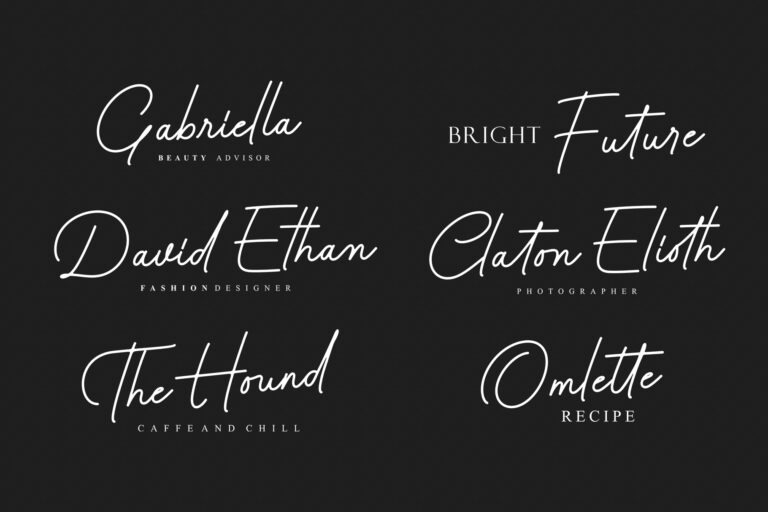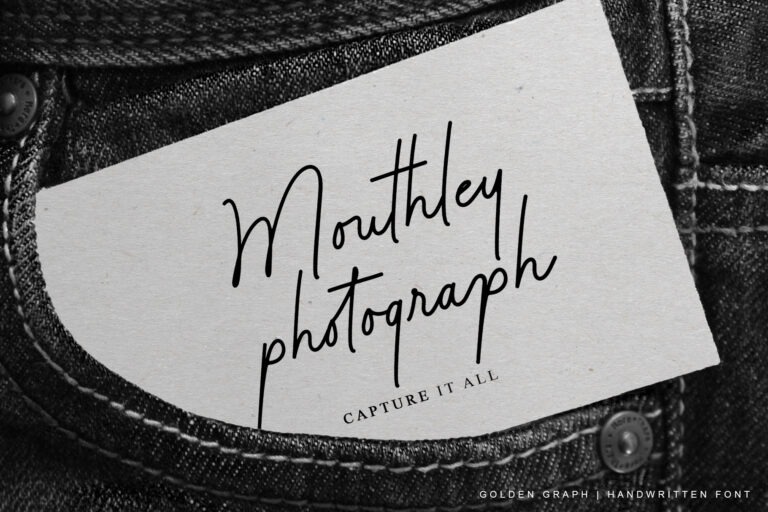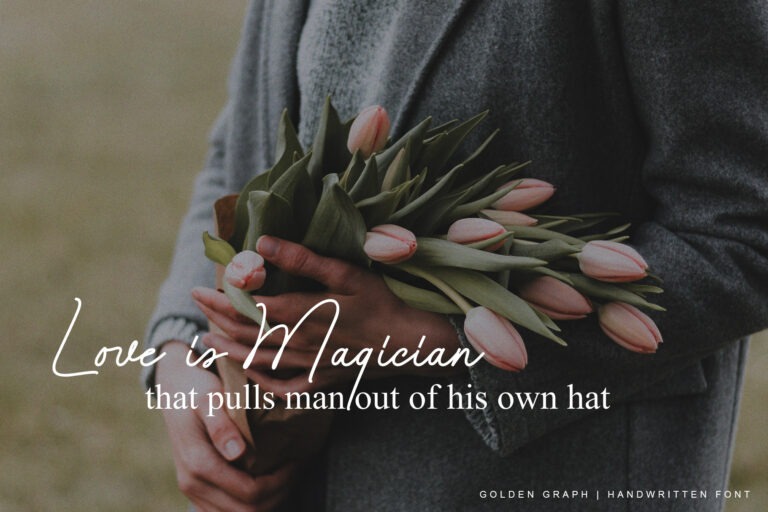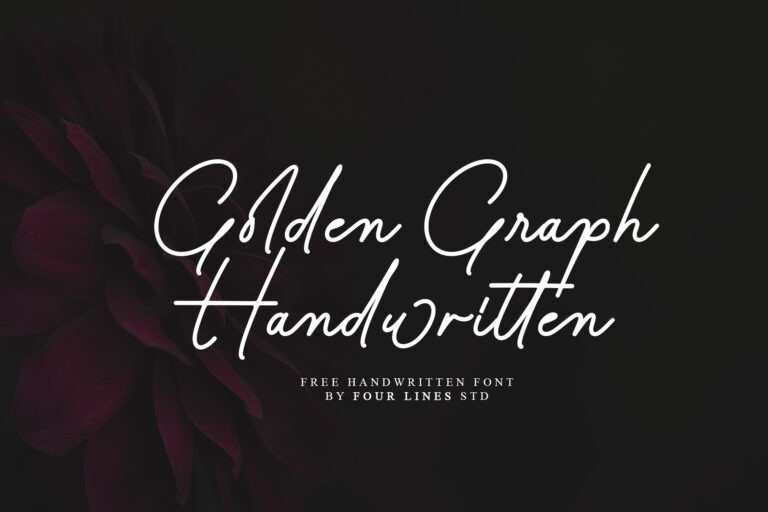
Golden Graph Handwritten Font is an elegant and dainty handwritten font that features sweet and delicate swashes. This original look will appeal to a wide range of crafty ideas, from letterheads and titles to stationery. This typeface is perfect for an elegant & luxurious logo, book or movie design titles, fashion brands, magazines, clothing, fonts, quotes and more.
Golden Graph